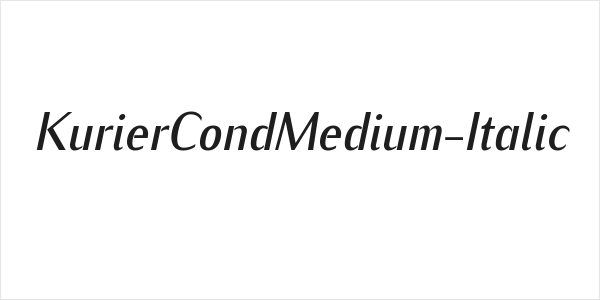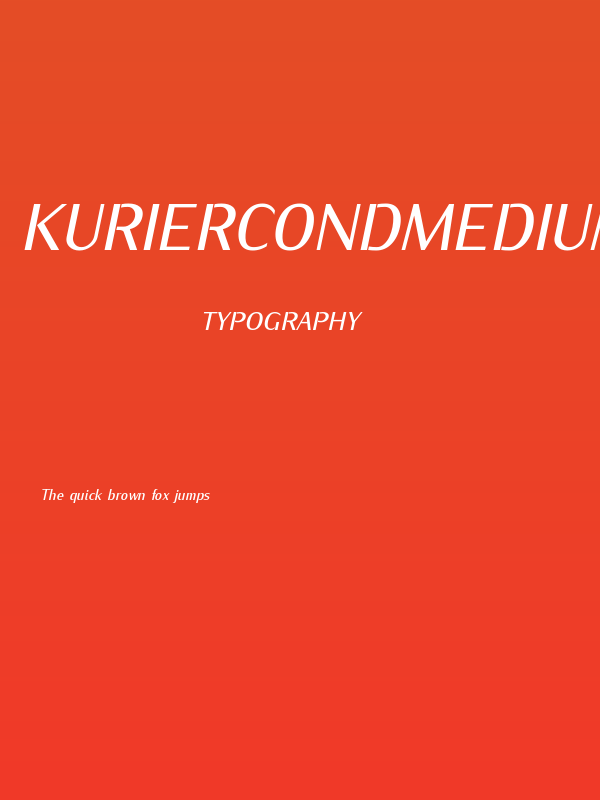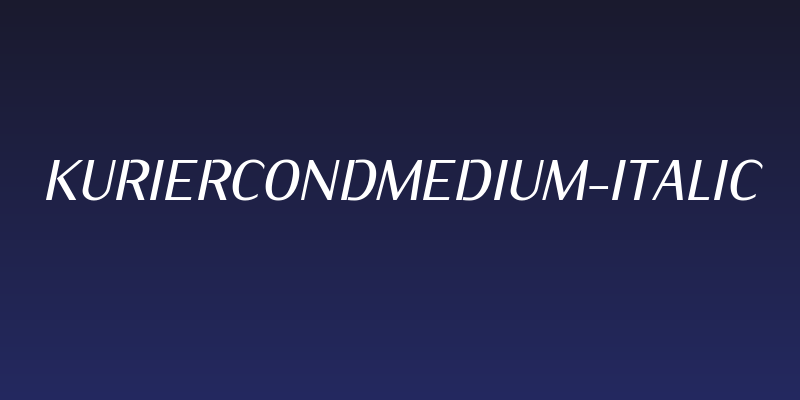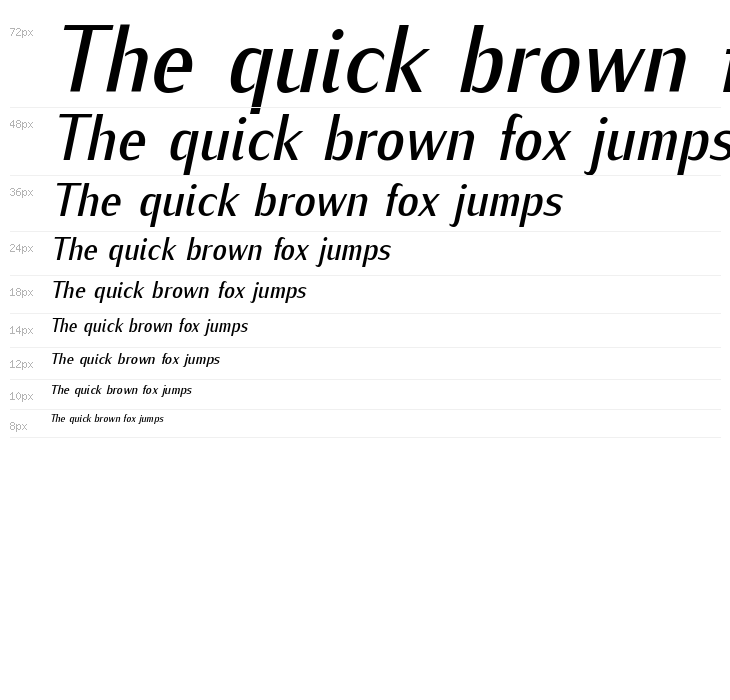
KurierCondMedium-Italic Font
KurierCondMedium-Italic Description
This font exhibits a modern and sleek design with a slightly condensed structure, making it ideal for both digital and print media. The italic style adds a dynamic and elegant touch, enhancing readability while maintaining a sophisticated appearance. The medium weight provides a balanced contrast, ensuring that the text stands out without being overpowering. The character spacing is normal, allowing for clear distinction between letters, which contributes to its legibility. The font's overall style is contemporary, making it versatile for various applications.
| Proposed Projects | Ideal for branding, editorial design, advertising, and web design projects that require a modern and elegant touch. |